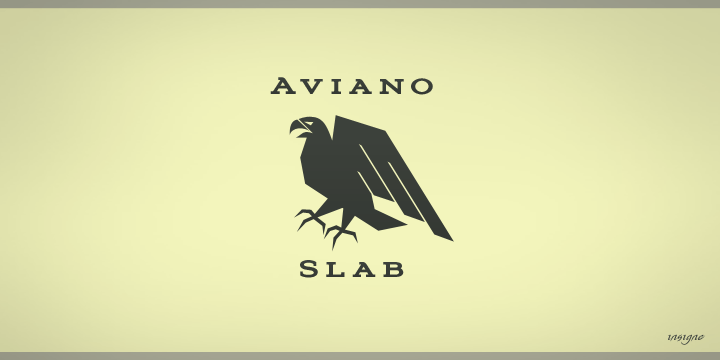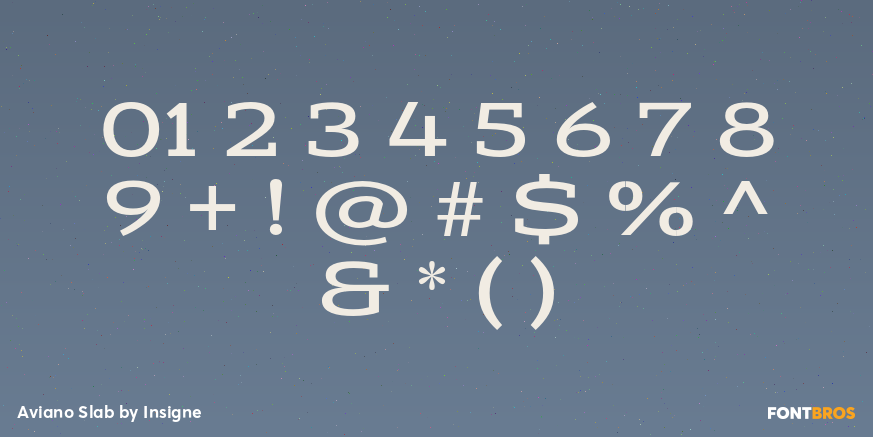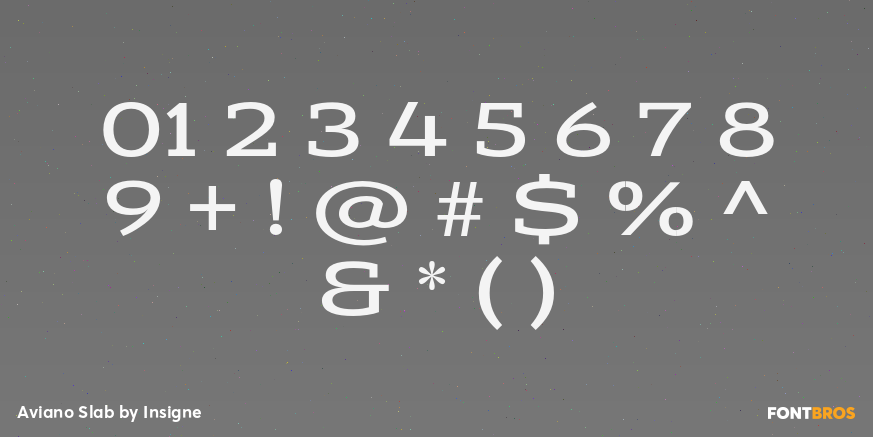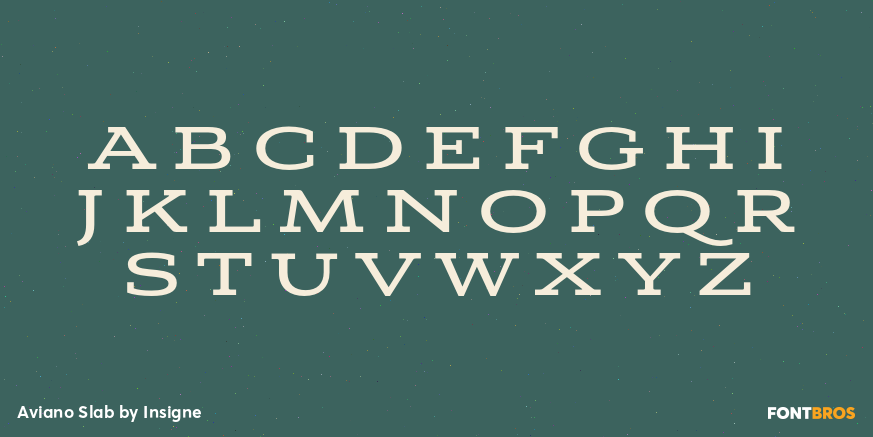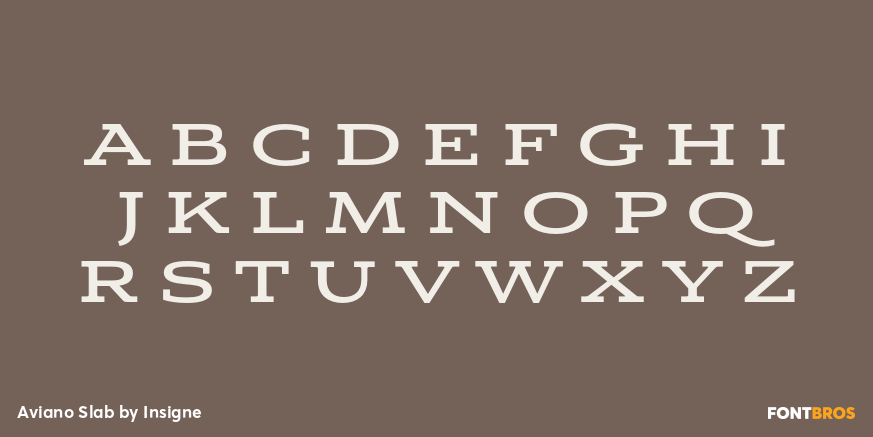
Aviano Slab
Font Family by Insigne
Aviano slab is an extended slab serif and the newest member of the popular insigne series Aviano. The same classically proportioned letterforms are now available in a slab serif variant for powerful impact.